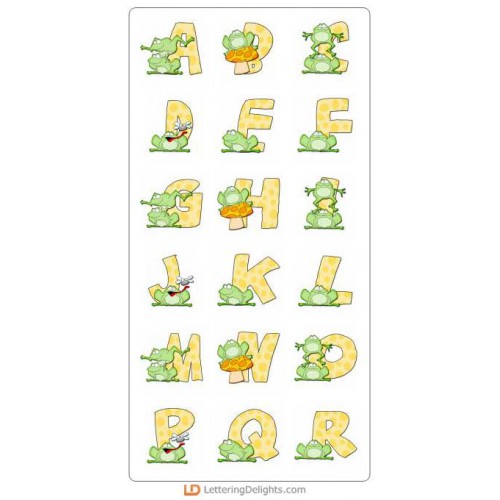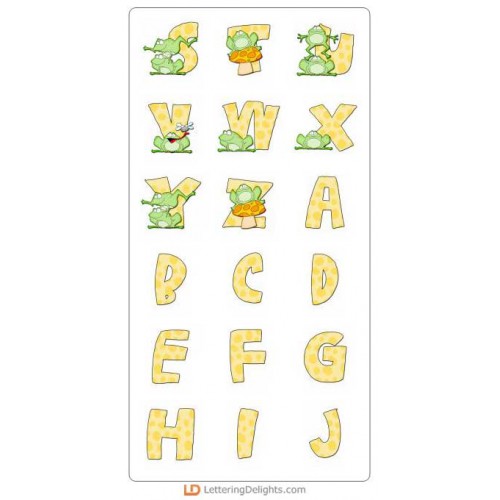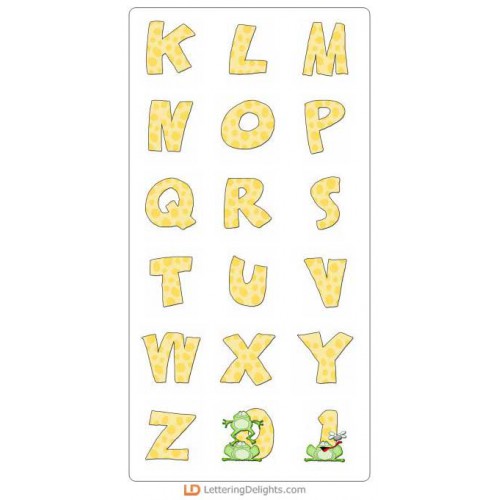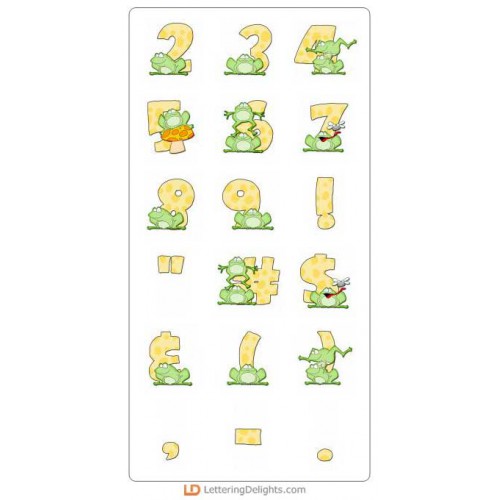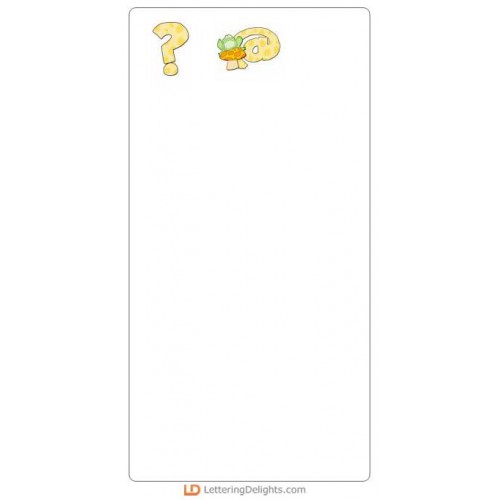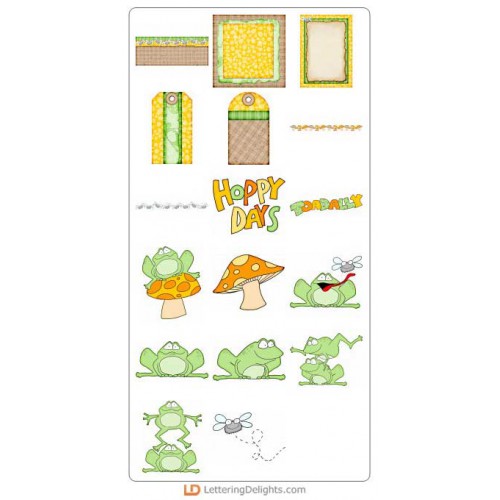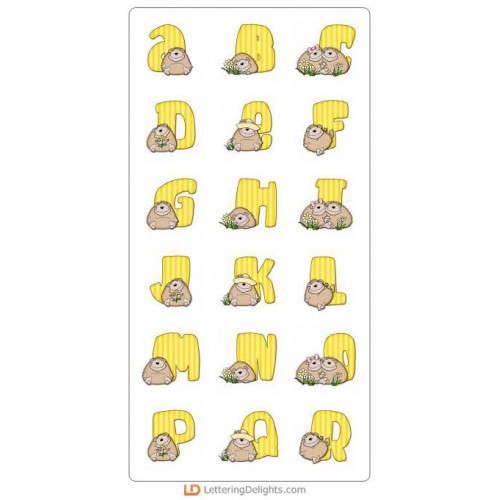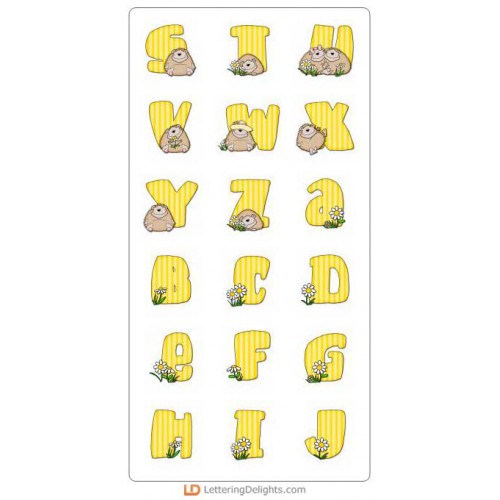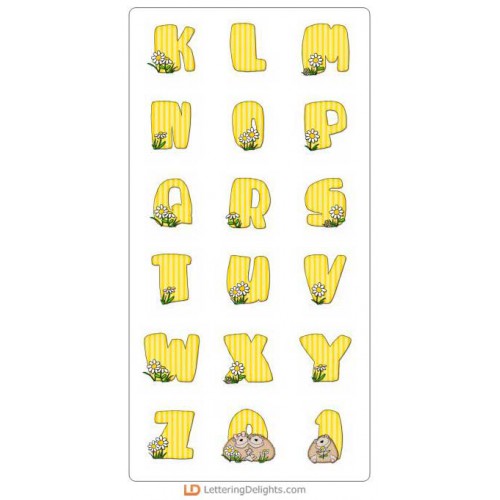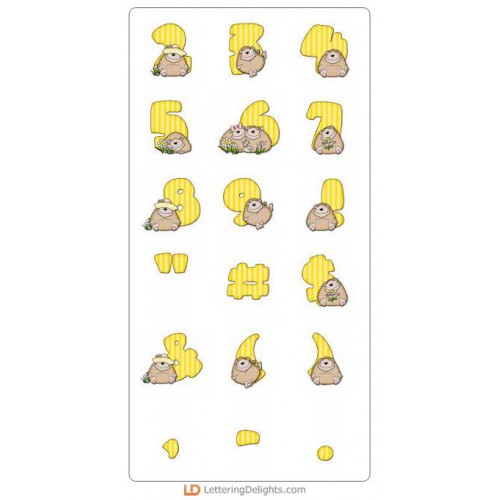
Jillustration's Random Critters Bundle
This money-saving bundle includes illustrated digital alphabets and ready-made scrapbooking embellishments, outfitted in true Jillustration style with adorable little critters. Find frogs, hedgehogs, and turtle, as well as a unique journaling font.